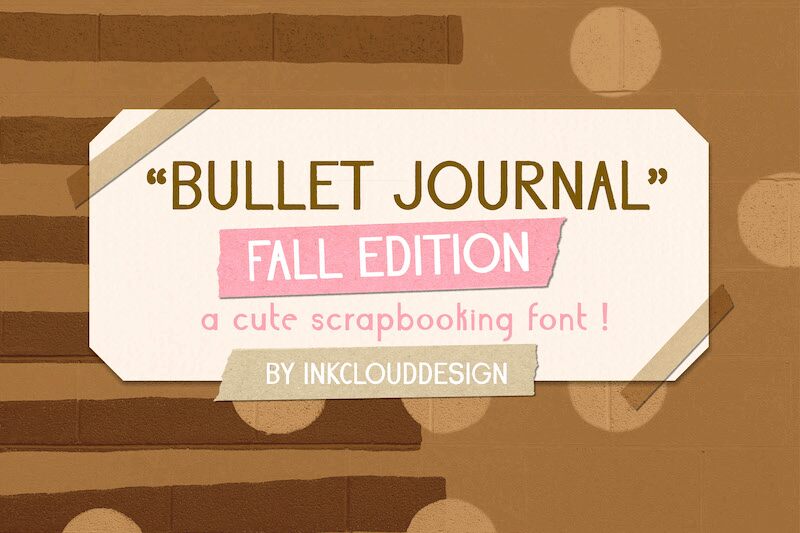
Bullet Journal Fall
Cute Sans Serif Bullet Journal Font | Modern Scrapbooking
"Bullet Journal - Fall" is a cute scrapbooking font ! Get inspired by its unique feel, and add a warm and friendly feel to any design idea.
"Bullet Journal- Fall" comes in lowercase and uppercase, numbers, special characters & multilingual characters. You can see all the glyphs displayed in the preview images above.
For example, you can use this font for:
typography designs
text on illustrations
print text on various objects such as cards, mugs, t-shirts, notebooks, wallpaper, wedding invitations, birthday cards, etc
& more !